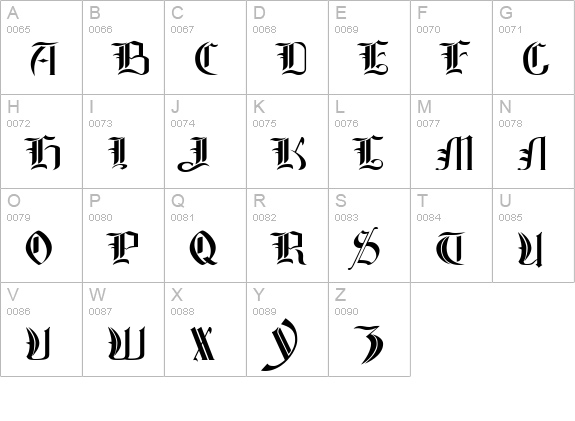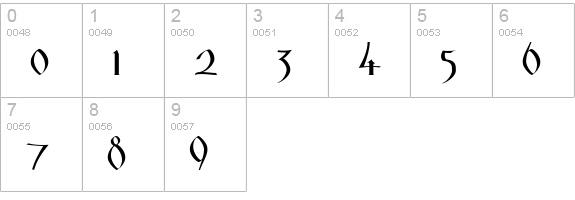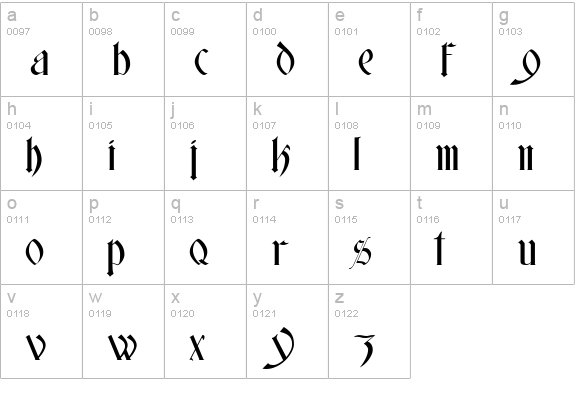
Glastonbury Wide is a distinctive, extended-width variant in the Glastonbury typeface family \xE2\x80\x94 well suited to design and typography projects.
Glastonbury Wide font is a versatile and elegant typeface that exudes sophistication and charm. Its wide letterforms command attention and make a bold statement in any design project. This font is perfect for headlines, titles, and branding materials, adding a touch of class and professionalism. The sleek and modern look of Glastonbury Wide font is sure to elevate your designs to the next level. Best of all, Glastonbury Wide font is available for free download at FontsMarket.com. You can easily access this stunning font and use it in your projects without any cost. Don't miss out on the opportunity to enhance your designs with this beautiful typeface. Download Glastonbury Wide font today and let your creativity shine!